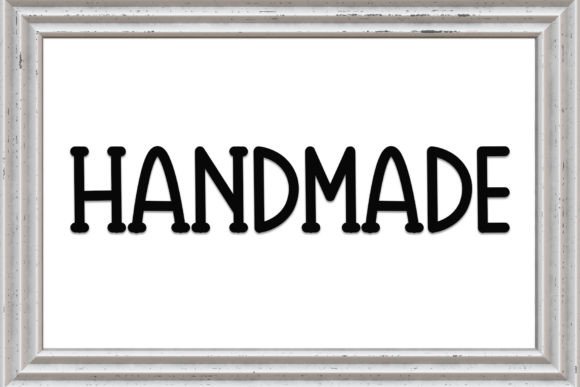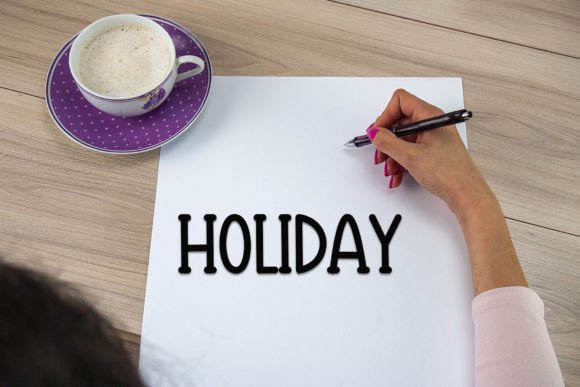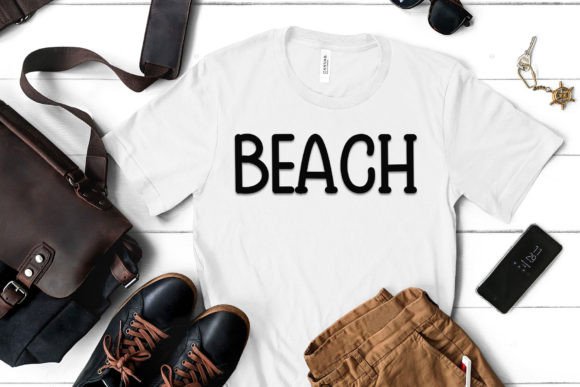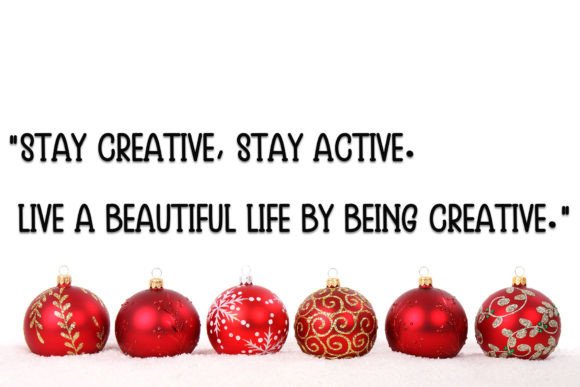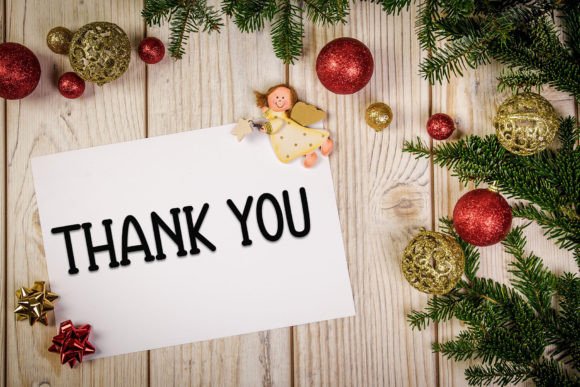
Introducing Christmas Tumbler Font: The Perfect Holiday Companion for Designers and Crafters
The holiday season is upon us, and with it comes the need for festive and inviting designs that capture the warmth and magic of Christmas. For designers and crafters looking to add a personal touch to their holiday projects, the Christmas Tumbler Font is a charming handwritten font that is sure to delight. In this article, we’ll take a closer look at the features and benefits of Christmas Tumbler Font, and explore how it can be used to create beautiful and engaging holiday designs.
What is Christmas Tumbler Font?
Christmas Tumbler Font is a charming handwritten font that exudes a warm, festive feel. Its flowing letters are designed to bring a personal touch to holiday messages, making everything look cozy and inviting. Whether you’re creating Christmas cards, decorations, or seasonal greetings, this font is the perfect choice for adding a touch of holiday cheer to your designs.
Key Features of Christmas Tumbler Font
- Handwritten style: Christmas Tumbler Font features a beautiful handwritten style that is both elegant and playful.
- Flowing letters: The font’s flowing letters are designed to bring a sense of movement and fluidity to your designs.
- Warm and festive feel: The font’s warm and festive feel makes it perfect for holiday designs.
- Personal touch: The font’s handwritten style adds a personal touch to holiday messages, making them feel more special and meaningful.
Benefits of Using Christmas Tumbler Font
So why choose Christmas Tumbler Font for your holiday designs? Here are just a few benefits of using this charming font:
- Easy to read: The font’s clear and flowing letters make it easy to read, even at small sizes.
- Versatile: Christmas Tumbler Font can be used for a wide range of holiday designs, from Christmas cards to decorations and seasonal greetings.
- Unique: The font’s handwritten style gives it a unique and distinctive look that will set your designs apart from the crowd.
- Festive: The font’s warm and festive feel makes it perfect for holiday designs that need to capture the spirit of the season.
Using Christmas Tumbler Font in Your Designs
So how can you use Christmas Tumbler Font in your designs? Here are a few ideas to get you started:
- Christmas cards: Use Christmas Tumbler Font to create beautiful and personalized Christmas cards for friends and family.
- Holiday decorations: Add a touch of festive flair to your holiday decorations with Christmas Tumbler Font.
- Seasonal greetings: Use the font to create warm and inviting seasonal greetings for social media, email, or print.
- Craft projects: Add a personal touch to your craft projects, such as scrapbooking, journaling, or papercrafting, with Christmas Tumbler Font.
Tips for Getting the Most Out of Christmas Tumbler Font
Here are a few tips for getting the most out of Christmas Tumbler Font:
- Experiment with colors: Try pairing Christmas Tumbler Font with different colors and textures to add depth and interest to your designs.
- Play with sizes: Experiment with different font sizes to create visual interest and hierarchy in your designs.
- Add embellishments: Consider adding embellishments, such as glitter or snowflakes, to give your designs an extra touch of festive flair.
Christmas Tumbler Font is a charming handwritten font that is perfect for designers and crafters looking to add a personal touch to their holiday designs. With its flowing letters, warm and festive feel, and versatile style, this font is sure to become a go-to choice for holiday projects. Whether you’re creating Christmas cards, decorations, or seasonal greetings, Christmas Tumbler Font is the perfect companion for the holiday season.